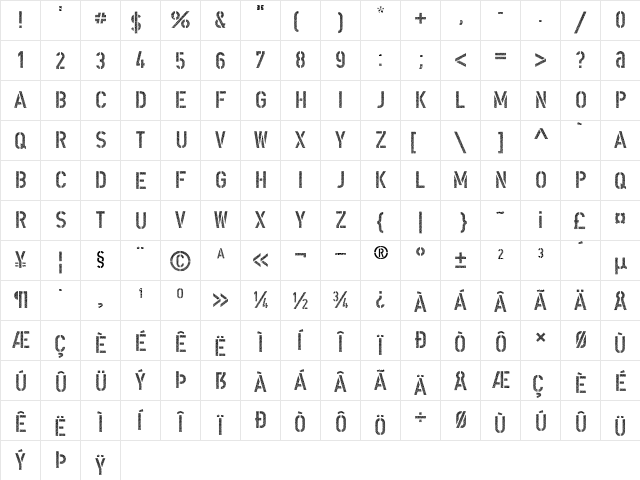
DIN Schablonierschrift Regular
| Foundry | Original Base Outlines Created by Marian Steinbach, Extended and cracked by Peter Wiegel |
| Designer | Original Base Outlines Created by Marian Steinbach <>, Extended and cracked by Peter Wiegel <http://www.peter-wiegel.de> |
Design Context for DIN Schablonierschrift Typeface
DIN Schablonierschrift is a composed and adaptable typeface that performs quietly and consistently across a wide range of design contexts.